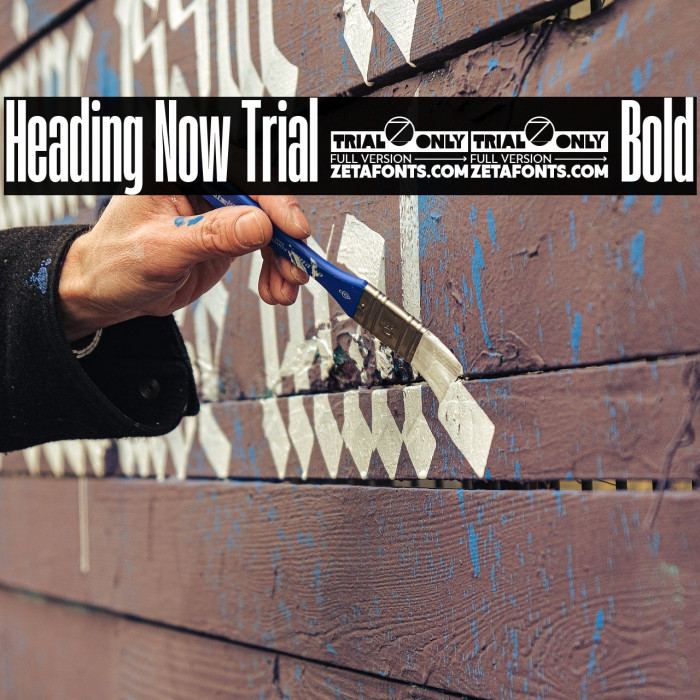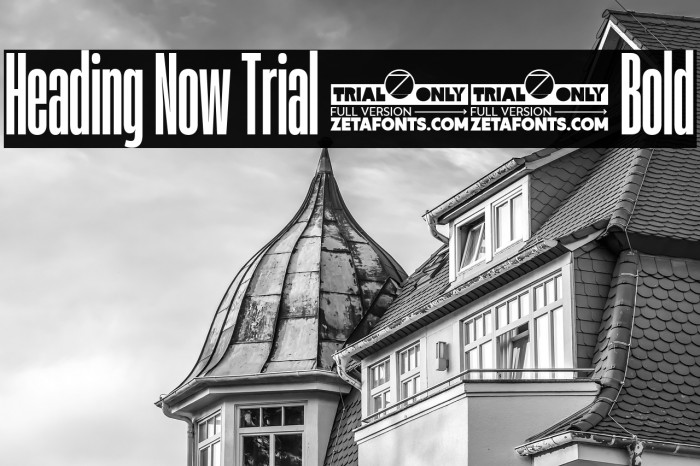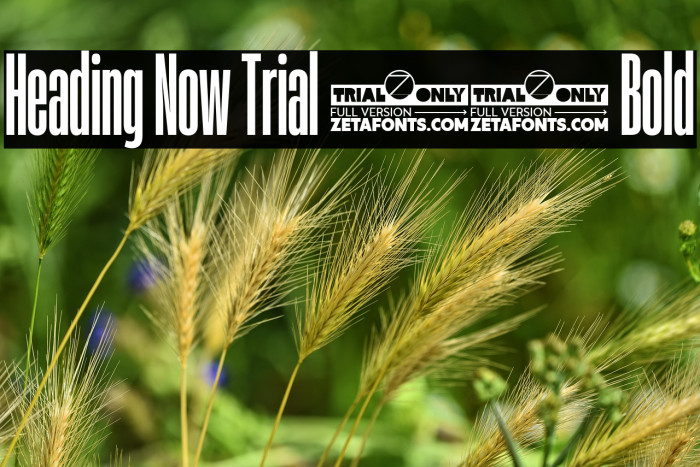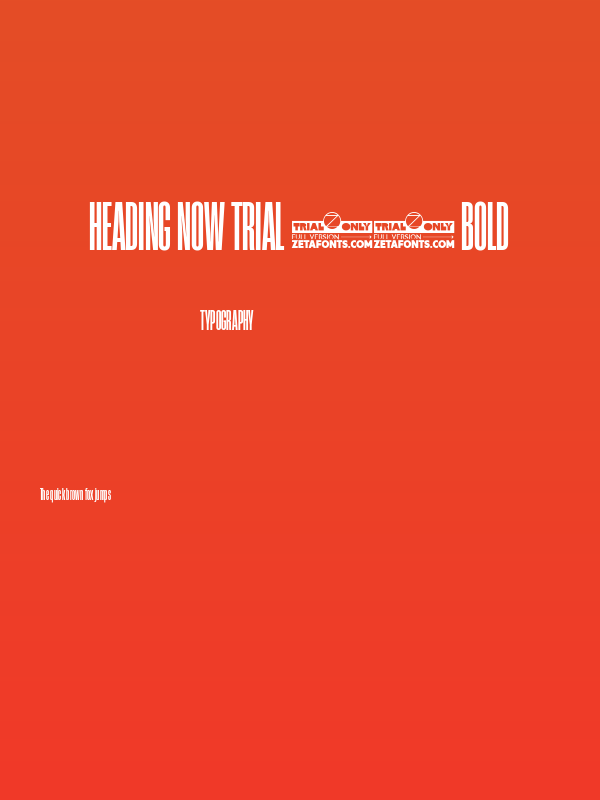
Heading Now Trial 16 Bold Font
Heading Now Trial 16 Bold Description
This font exhibits a bold and impactful design, characterized by its tall and narrow letterforms. The uppercase and lowercase letters maintain a consistent height, contributing to a cohesive and structured appearance. The font's vertical emphasis is complemented by its tight character spacing, which enhances its strong and assertive presence. The strokes are uniform in thickness, providing a medium contrast that balances readability with visual interest. Its modern style makes it suitable for contemporary design projects, where clarity and boldness are essential.
| Proposed Projects | This font is perfect for headlines, posters, and branding projects where a strong and modern aesthetic is desired. |